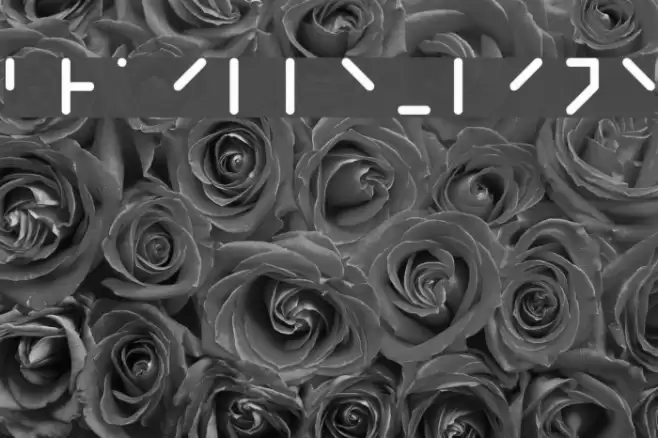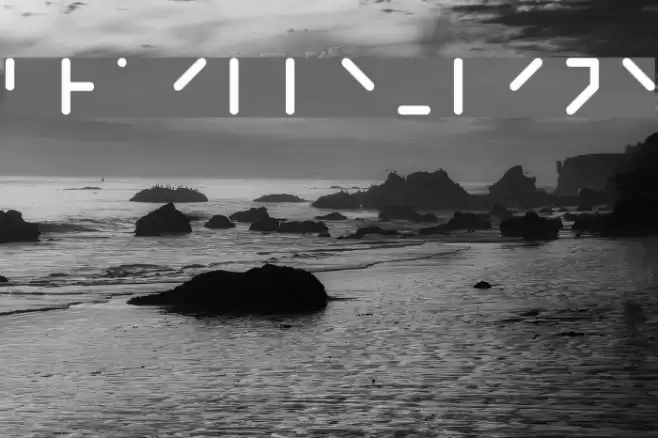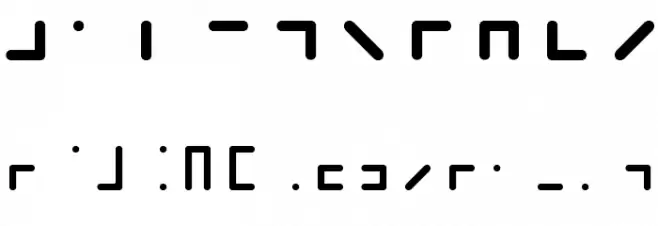
Braille-line Font
Braille-line Description
This font features a unique, abstract design that resembles a futuristic or alien script. The characters are composed of simple geometric shapes, primarily lines and dots, creating a minimalist and modern aesthetic. The design is consistent across all characters, maintaining a uniform style that is both intriguing and visually striking. The font lacks traditional letterforms, instead opting for a more symbolic representation, which could be ideal for creative projects that require a distinct and unconventional look.
A futuristic, abstract font with geometric shapes and a minimalist design from Uncategorized fonts.
- Proposed Projects: Ideal for sci-fi themed projects, video game interfaces, or any creative work requiring a unique, alien-like script.
- Use Case: Logos, Posters, Creative Displays